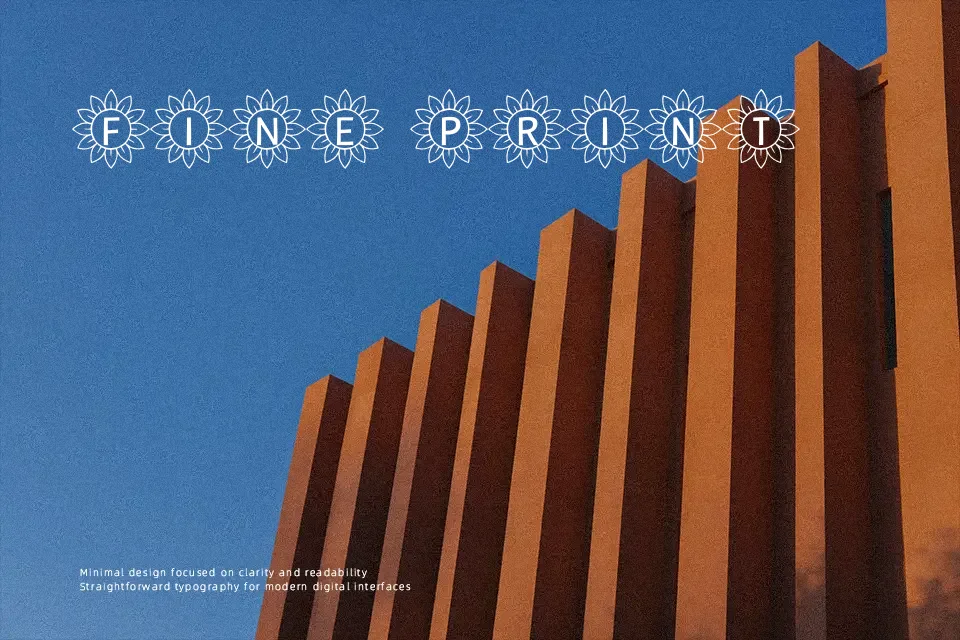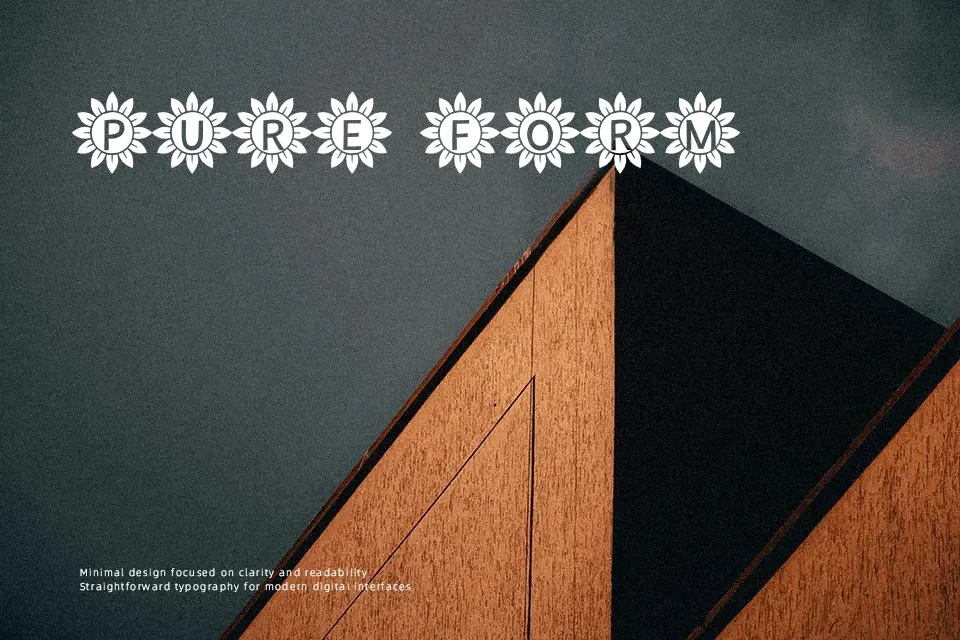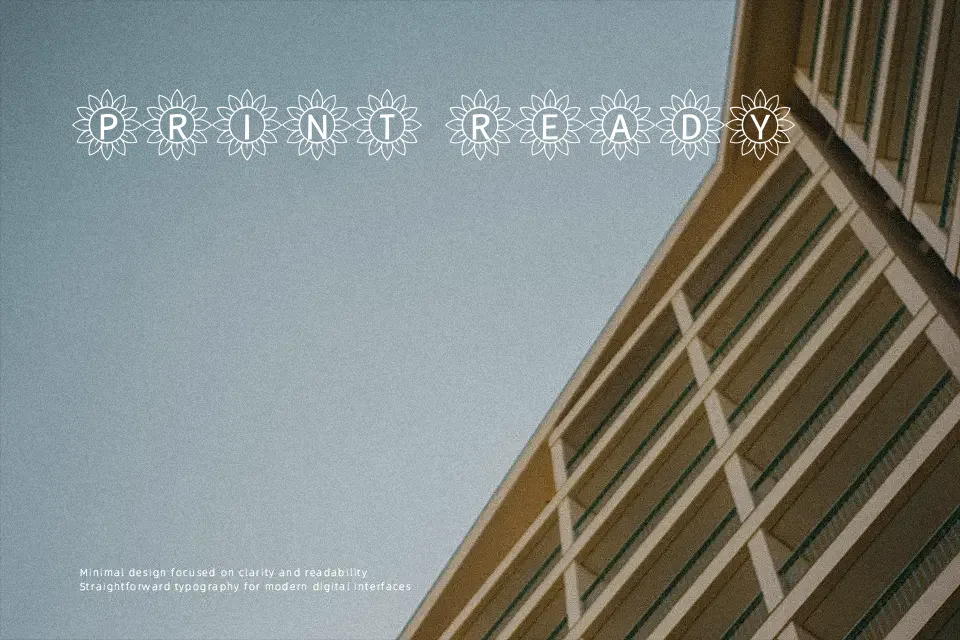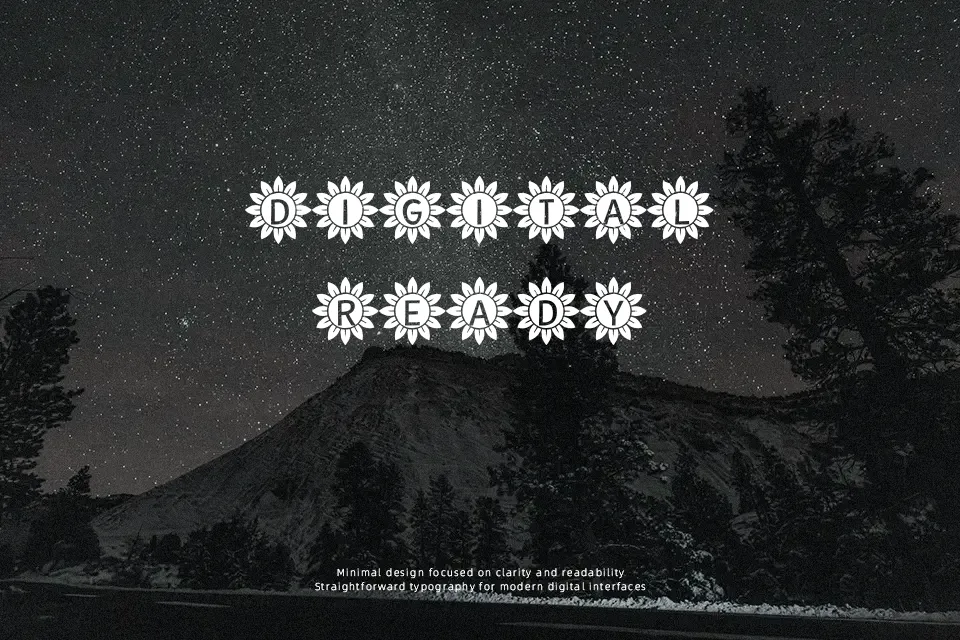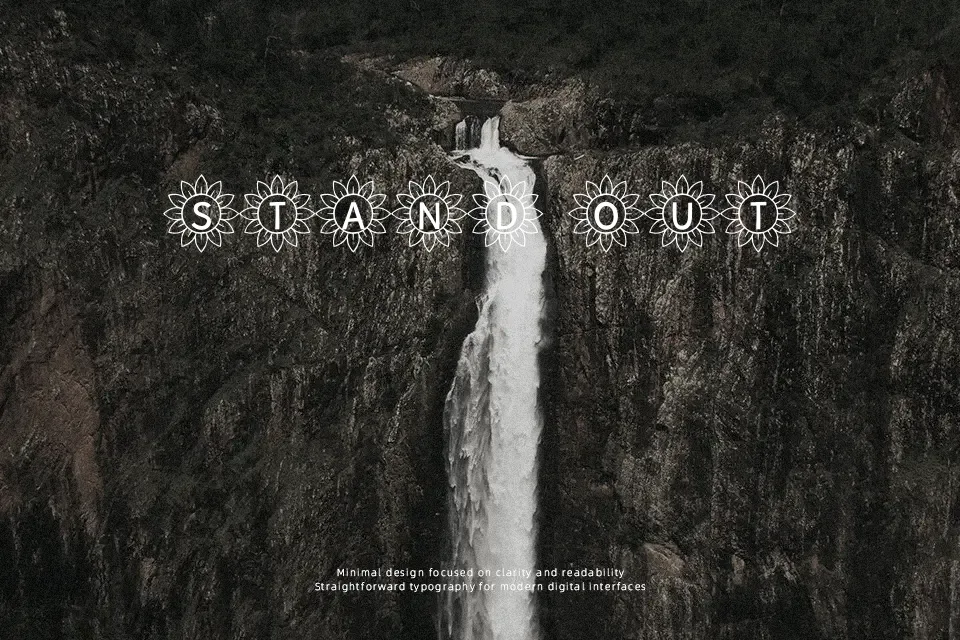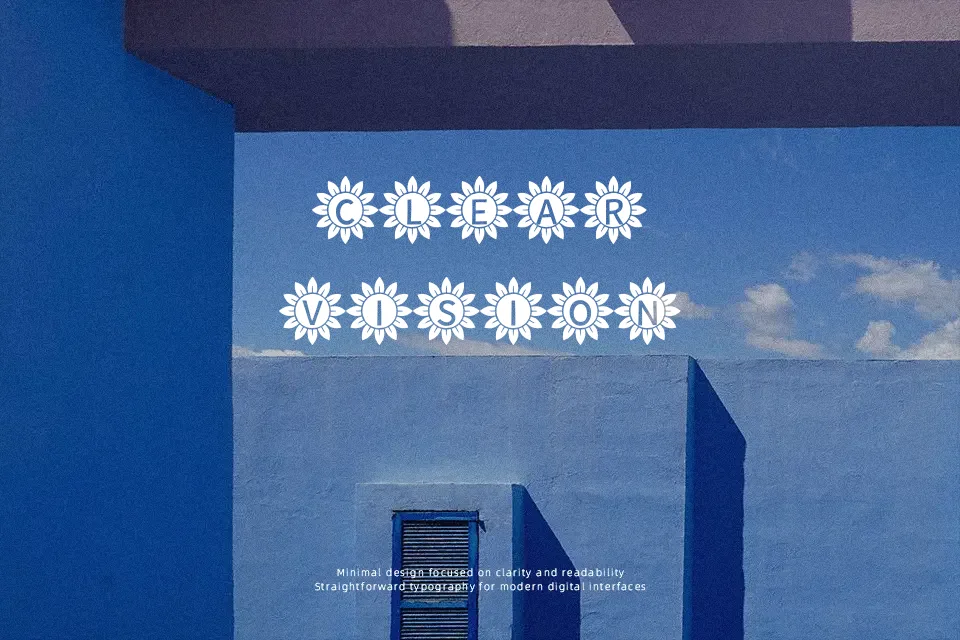
Sunflower Alphabet Font
Sunflower Alphabet Font pairs heavy, solid glyph silhouettes with enclosing floral contours to produce a striking decorative presence. The letterforms maintain uniform proportions with wide geometric frames, while the surrounding petals add pronounced outer density to each character. Spacing is naturally wide to accommodate the outer botanical outlines without visual overlap. In large-scale applications such as children’s party banners, seasonal packaging, and themed classroom materials, the design communicates clear recognition effortlessly. However, the heavy decorative enclosing shapes reduce comfort during continuous reading and obscure intricate glyph details at small point sizes. For isolated titles and bold display headers, the typeface offers an engaging visual solution.
Best For: children craft projects, spring festival banners, seasonal gift packaging, themed classroom signage
Not Ideal For: continuous paragraph text, small user interface labels, dense legal documents, corporate financial reports
Perfect for headline, invitation, and kids, with a cute and decorative style.